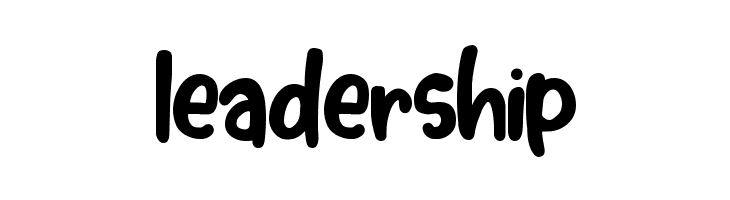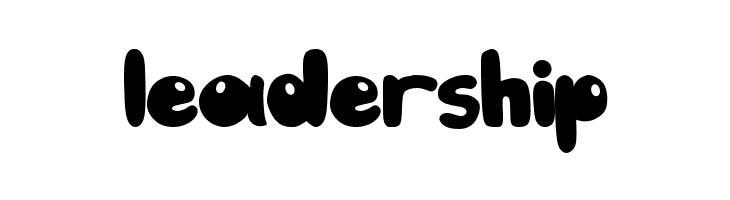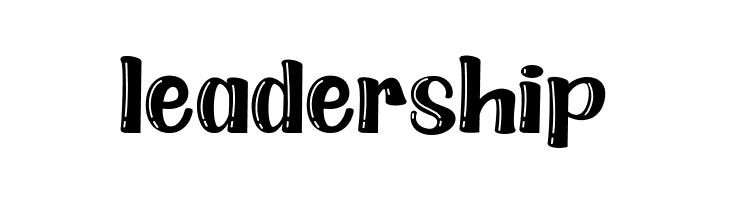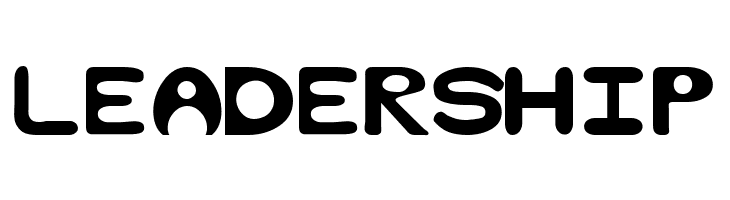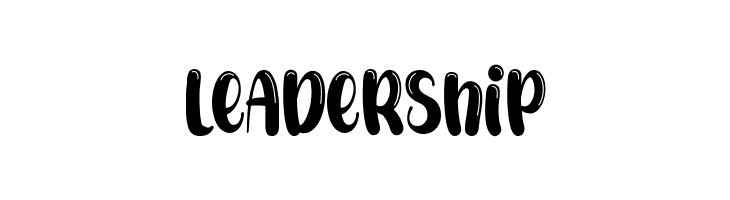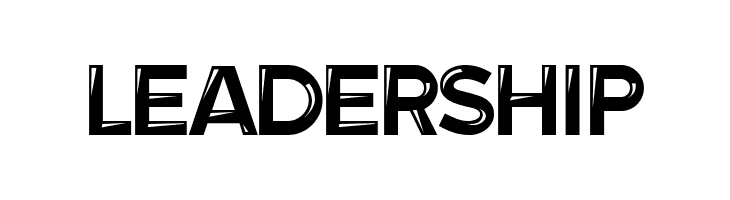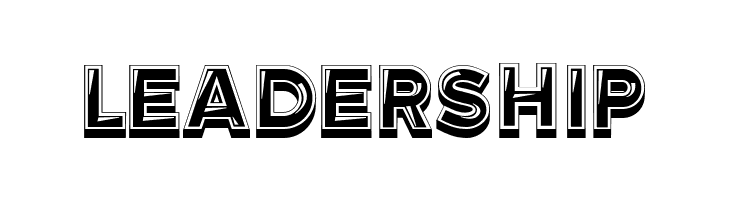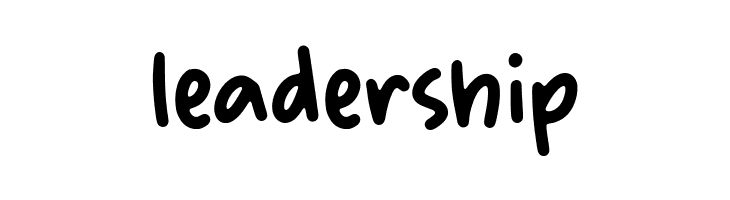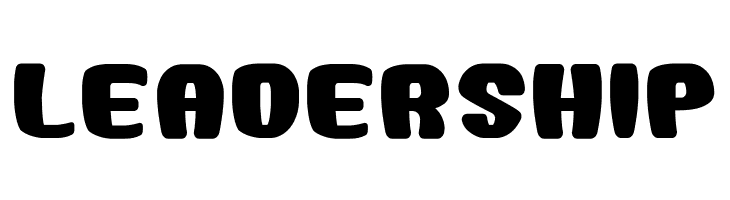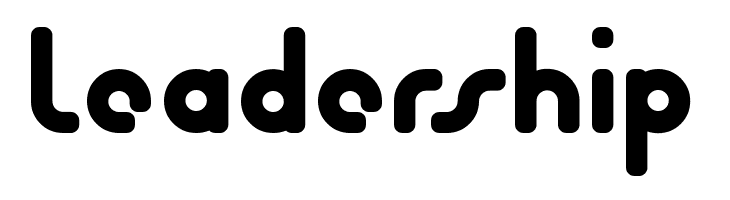
A playful, bold font with rounded, comic-style letterforms and a three-dimensional effect.
Playful, bubbly font with thick strokes.
A bold, decorative font with gothic and bubble-like elements, featuring high contrast and intricate detailing.
A bold, playful font with rounded, bubble-like characters.
Handwritten sans-serif characters inside playful circles.
A bold, bubbly font with rounded, playful characters.
A bold, dynamic font with a playful, three-dimensional bubble-like style.
A bold, three-dimensional font with a playful and dynamic appearance.
A playful, bubbly font with rounded, cartoonish characters.
A bold, bubbly font with a glossy, three-dimensional appearance.
A playful, bubbly typeface with rounded characters and decorative dots.
A playful, hatched bubble font with a textured, hand-drawn appearance.
A bold, playful font with rounded, bubble-like characters.
A decorative, heart-themed monogram font with playful circular frames.
A playful, bubble-themed decorative font with intricate circular patterns.
A playful, bold font with rounded, bubbly characters and a lively appearance.
A playful, bold font with a bubble-like design and shadow effect.
A playful, bubbly font with a bold and whimsical design.
Decorative bubble font with leaf embellishments and rounded, handwritten characters.
A bold, playful font with bubble-like decorations inside each character.
A playful, bold font with rounded, bubbly characters ideal for fun and whimsical designs.
A playful, bold typeface with rounded, bubble-like characters.
A playful and whimsical font with bold, rounded forms and decorative elements.
A playful, pixelated bubble font with a retro digital aesthetic.
A playful, pixelated font with bead-like characters, perfect for retro or tech-themed designs.
A pixelated, bubble-like font with rounded dots creating a playful digital aesthetic.
A playful, pixelated font with a bubble-like texture and retro digital aesthetic.
A playful, bubbly font with a hand-drawn, whimsical style.
A playful, rounded font with a hand-drawn, bubbly style.
A bold, bubbly font with a shiny, playful style.
A bold, playful font with rounded, bubble-like characters ideal for fun and informal designs.